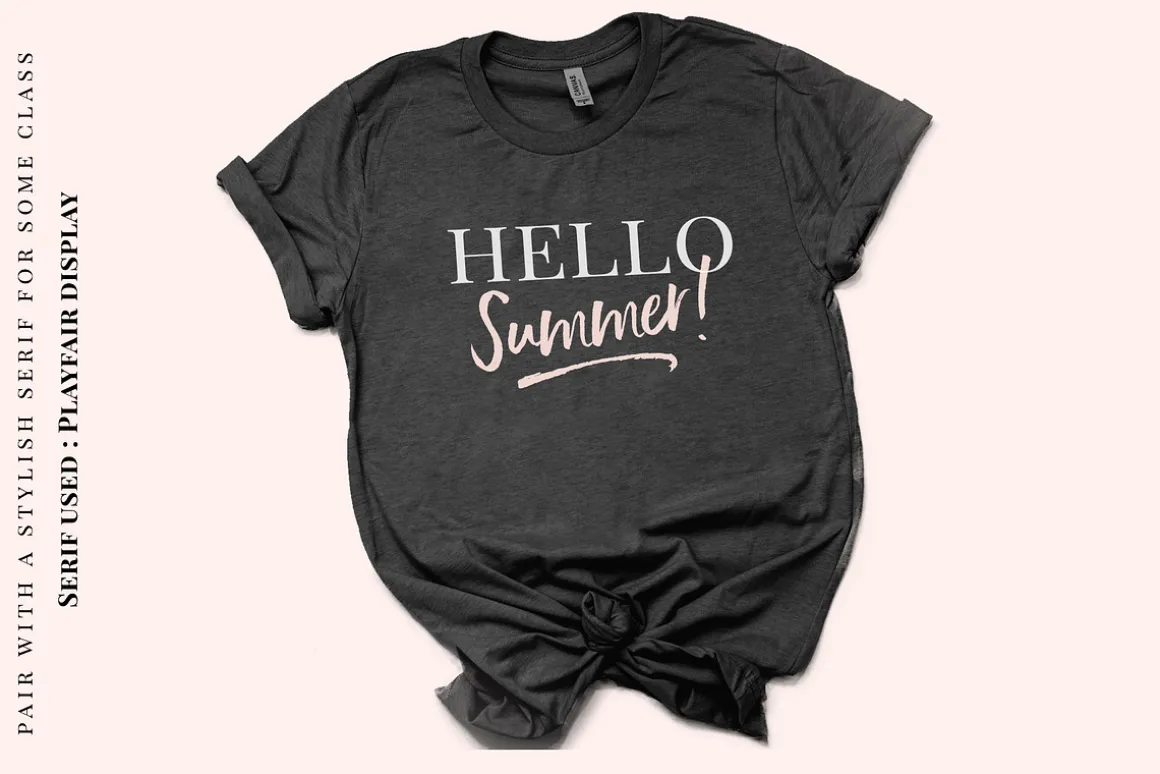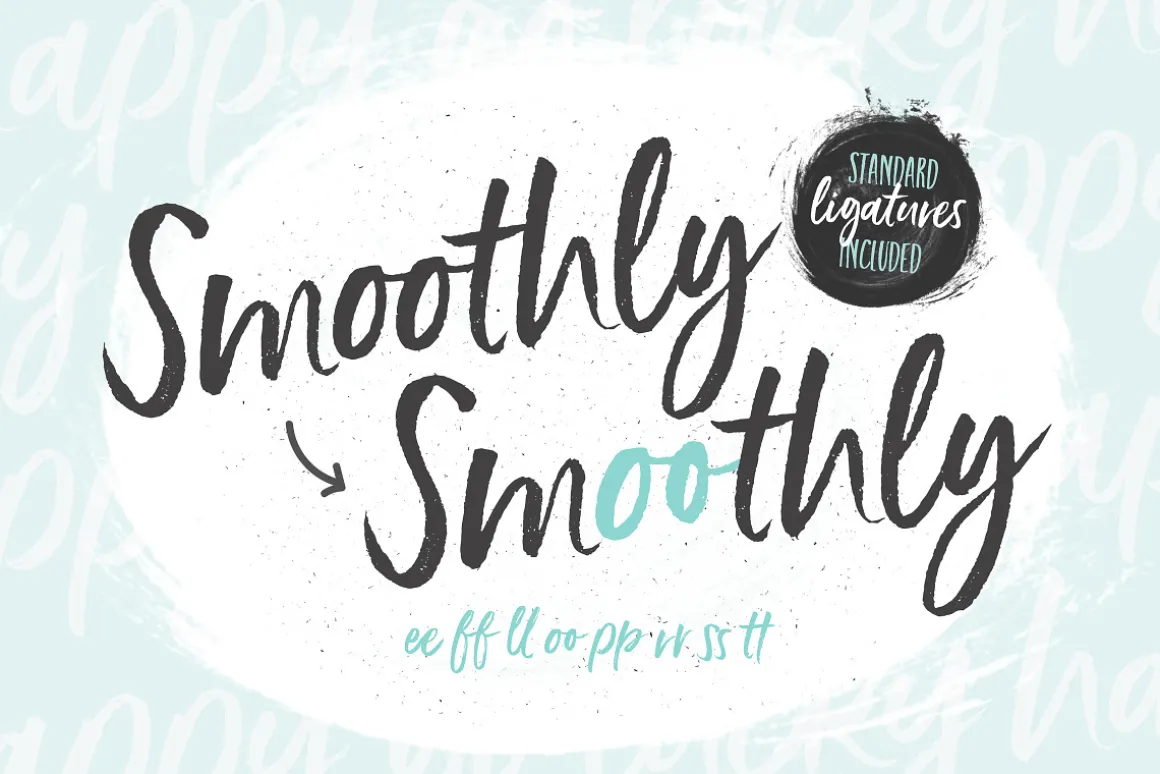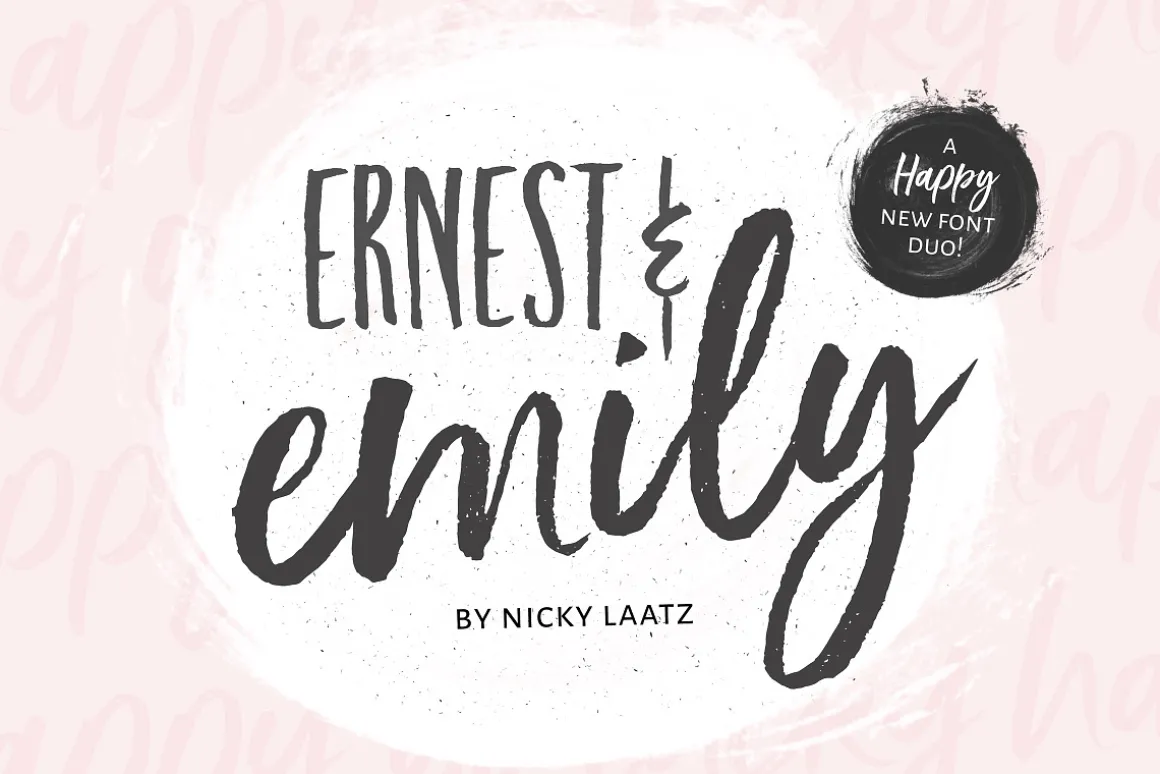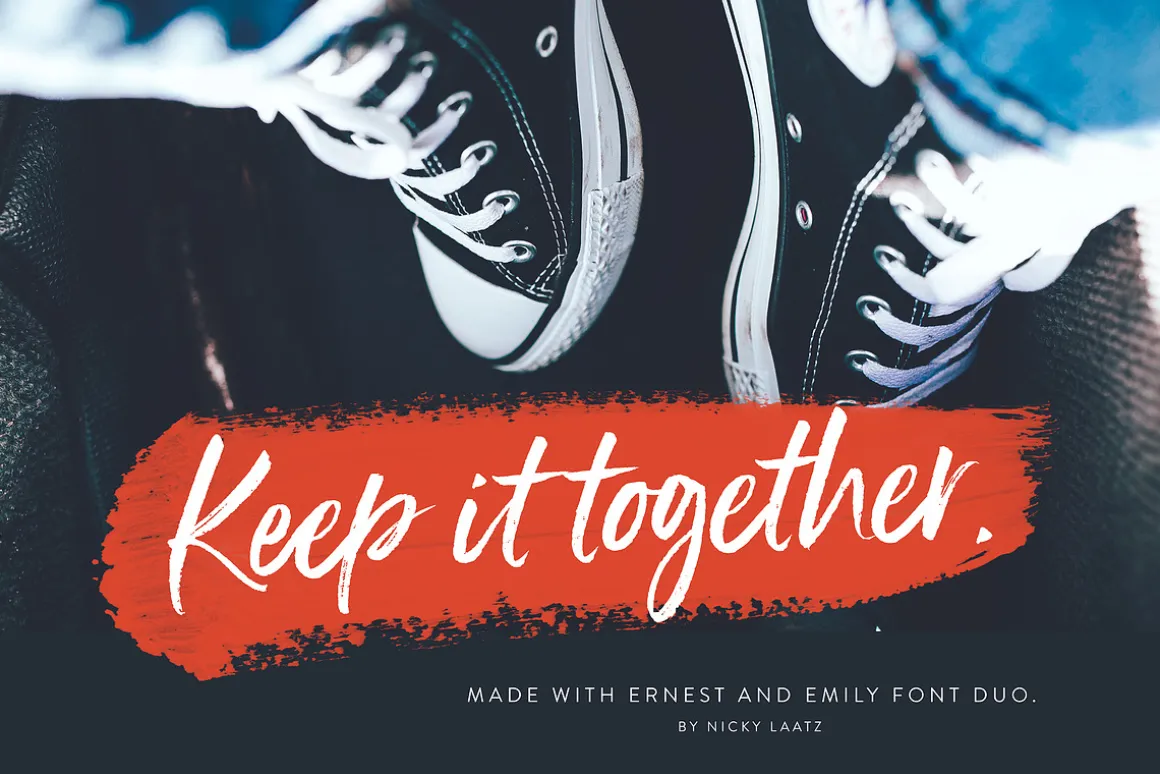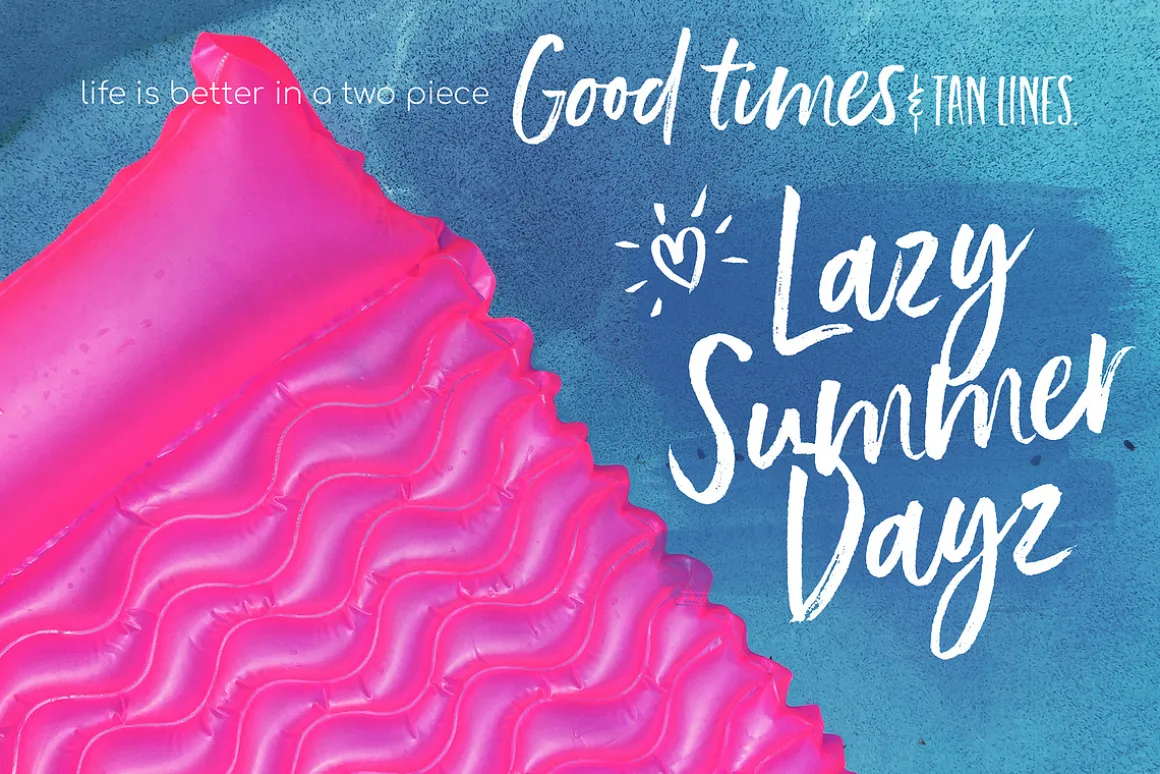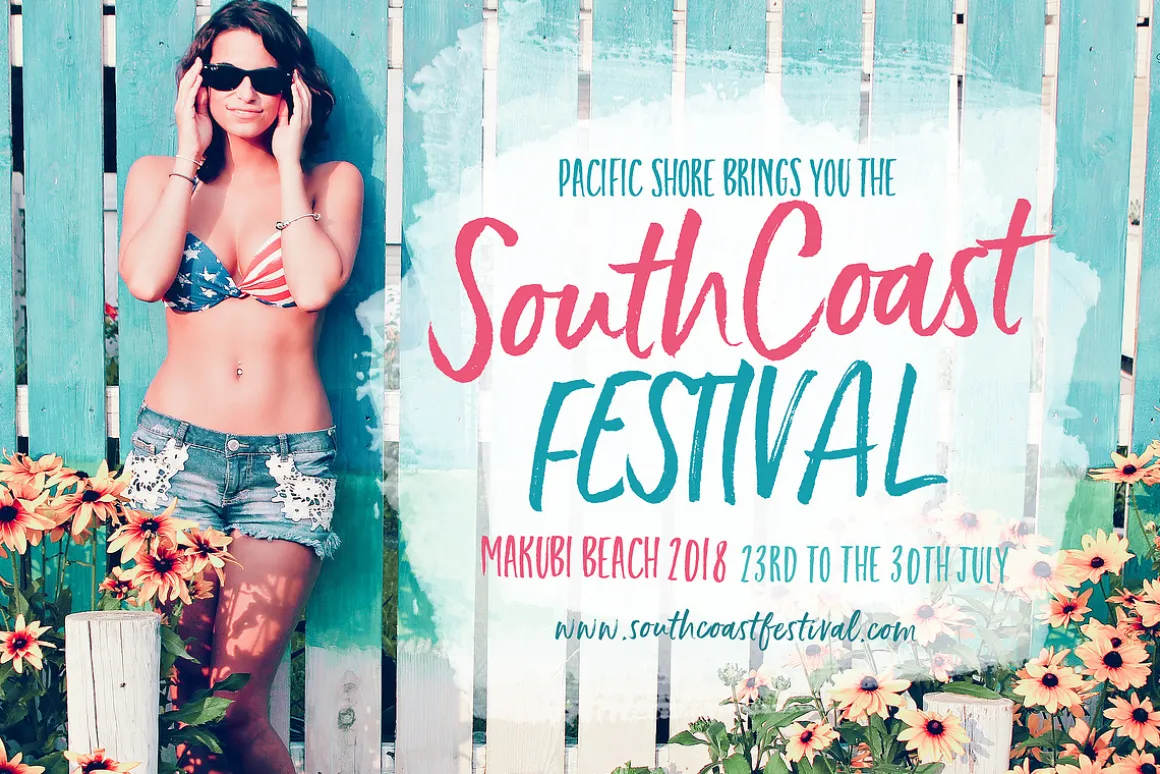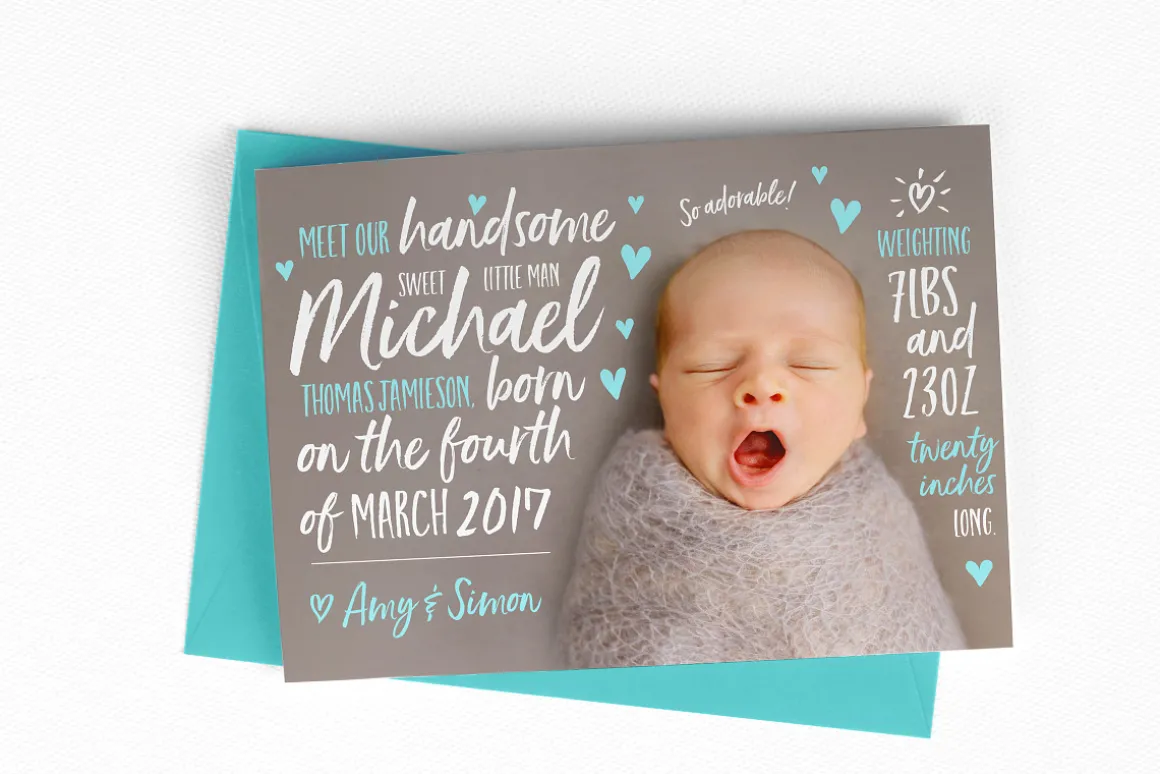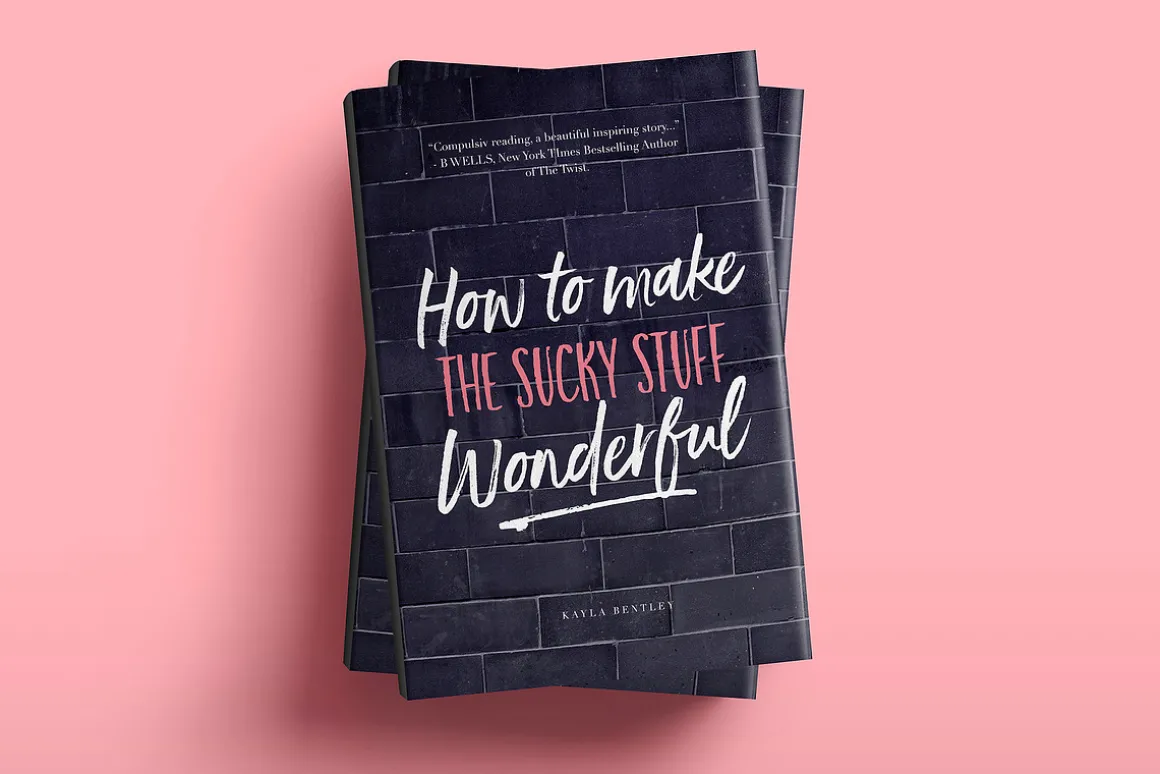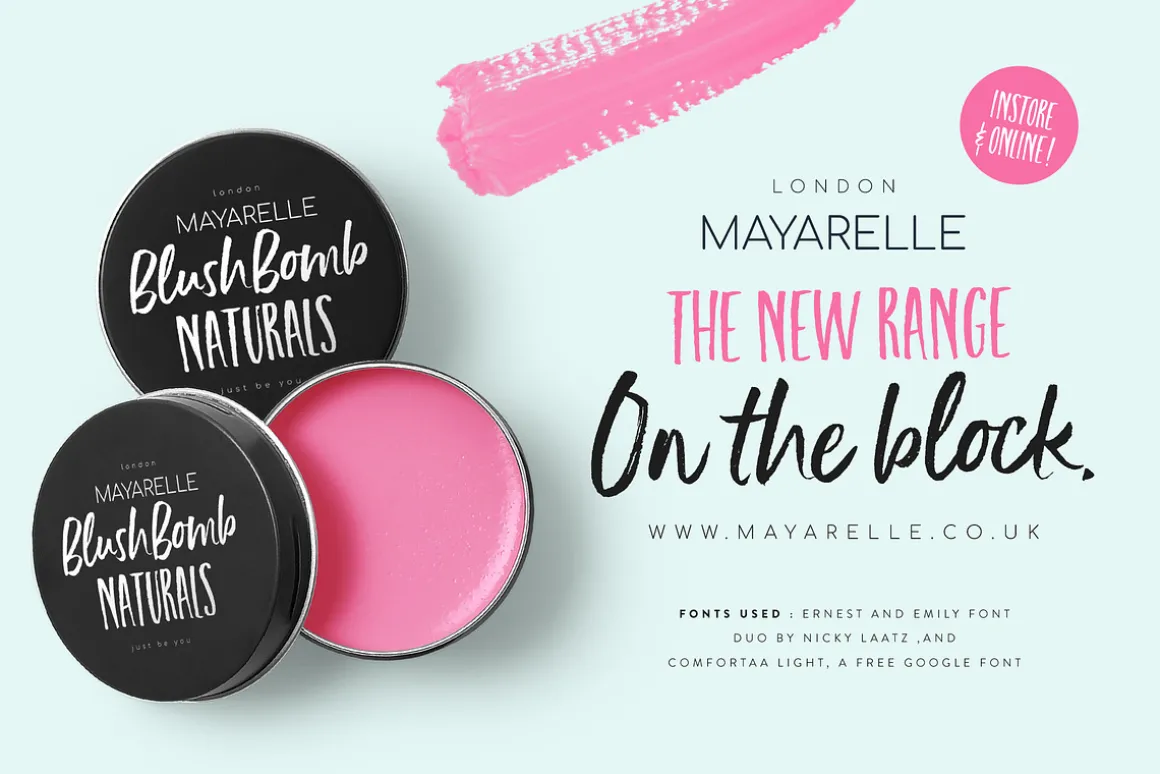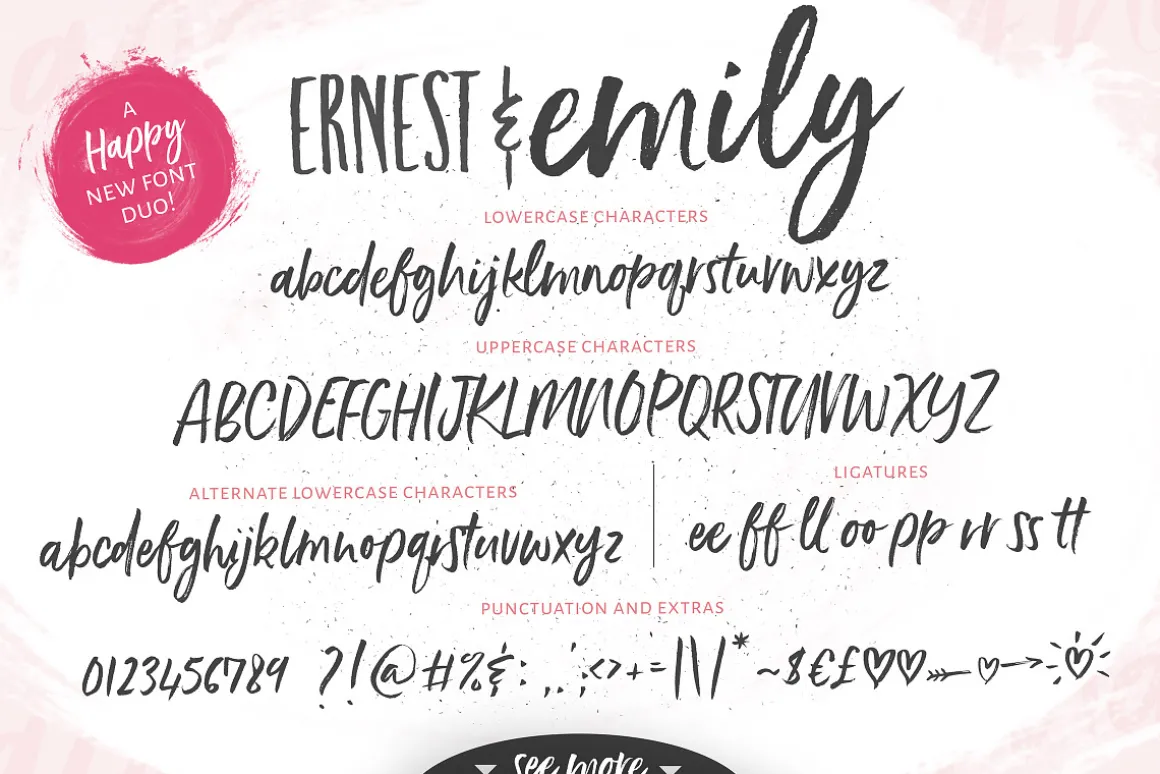
I’d like to introduce you to Ernest and Emily 🙂 ….The happiest font do you’ll ever meet 🙂 They are completely in love with each other, and always get along like a house fire 🙂
Ernest and Emily consist of two lovingly handwritten fonts. A brushed quirky-casual script, and a playful all-caps sans serif font.
Perfect for Type-based creations, branding, websites, merchandise, packaging, quotes, invites, greetings, book covers, editorials and so much more! All they need is a blank canvas, and they work their magic for you!
The Script font comes with opentype features consisting of a full set of lowercase alternate letters, as well as natural looking double letter ligatures.( Opentype-capable software is required to access the alternates and ligatures – ie. Adobe Photoshop CC, any version of Illustrator ,Indesign, TextEdit, Pages, Word – see this link for how to use
The script comes in 3 variants – Regular, Slanted and Upright– each with its own twist to fit the look you need 🙂
Four sweet little heart glyphs can be found by typing the characters { } and [ ] individually 🙂
If you prefer a solid version of the script – that is included also as a separate text file with a download link.
Ernest and Emily has multilingual support for the following languages :Cornish, Danish, Dutch, English, Estonian, Faroese, Filipino, Finnish, French, Galician, German, Icelandic, Indonesian, Irish, Italian, Norwegian Bokmål, Norwegian Nynorsk, Portuguese,Spanish, Swahili, Swedish, Swiss German.